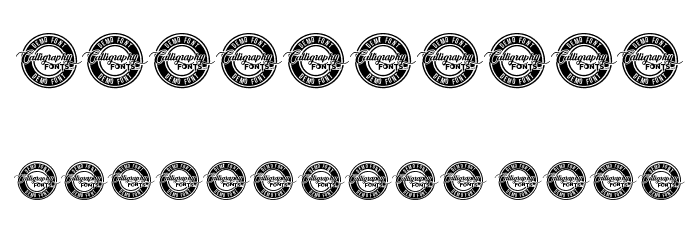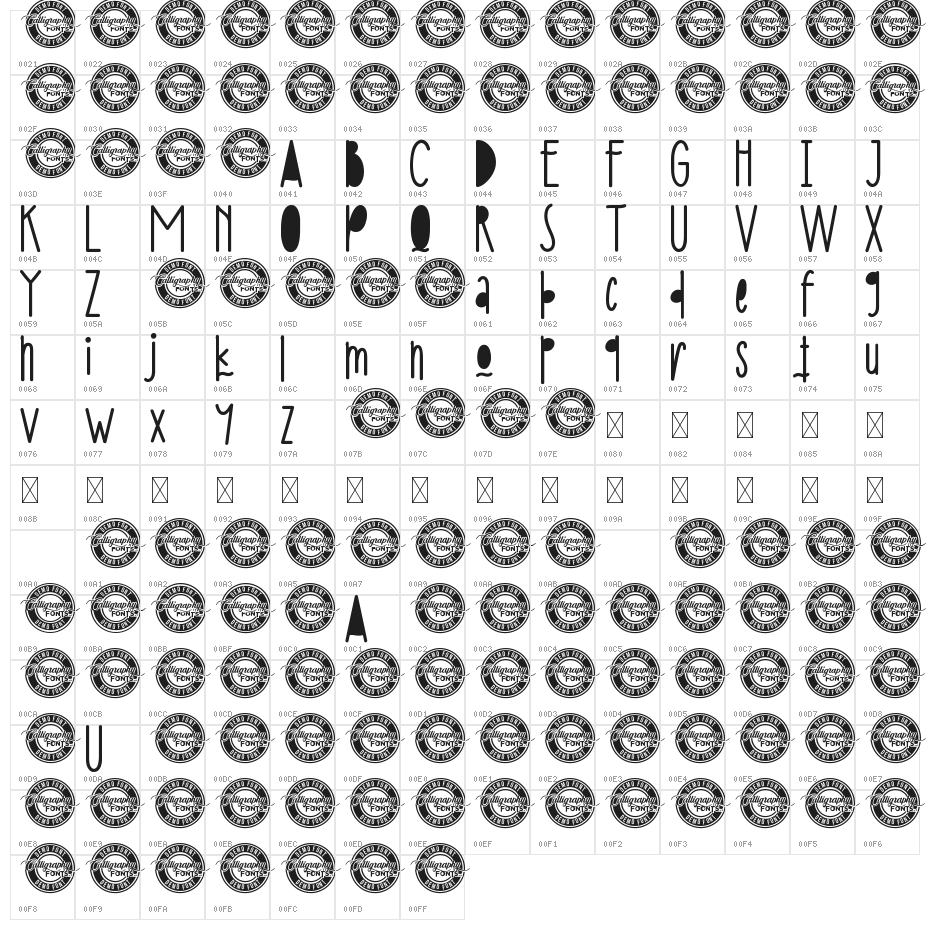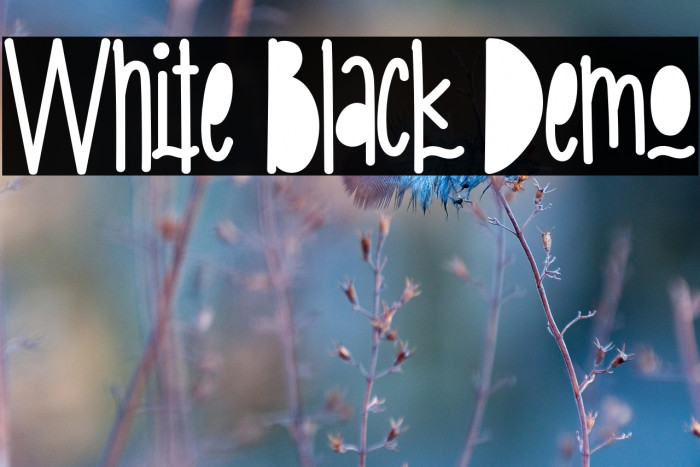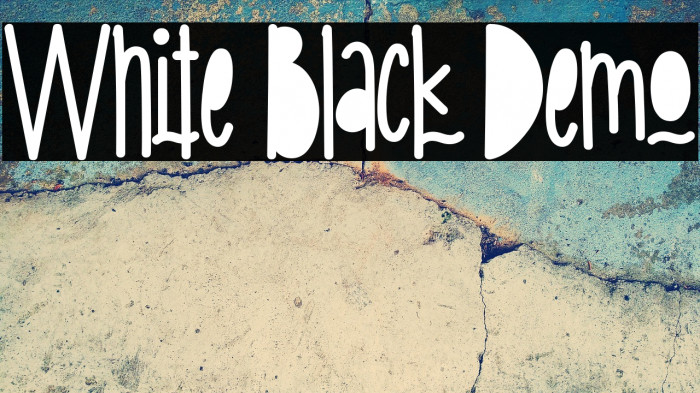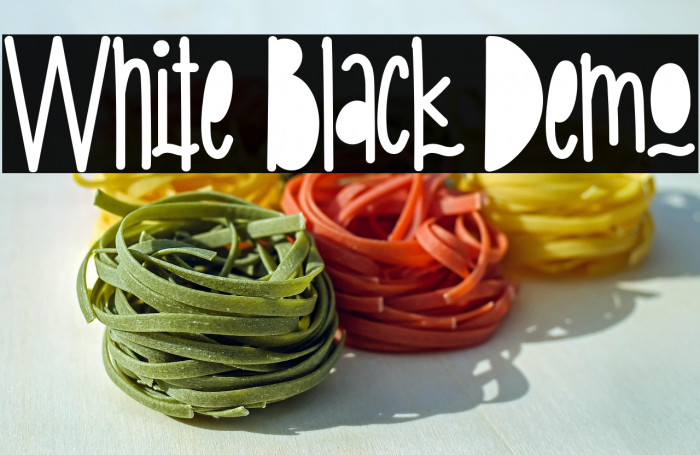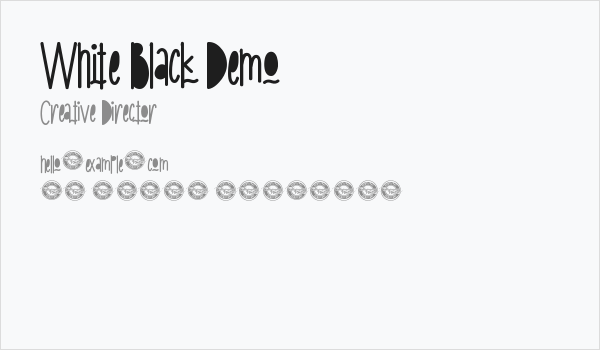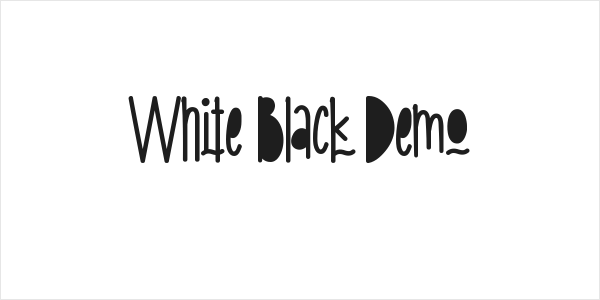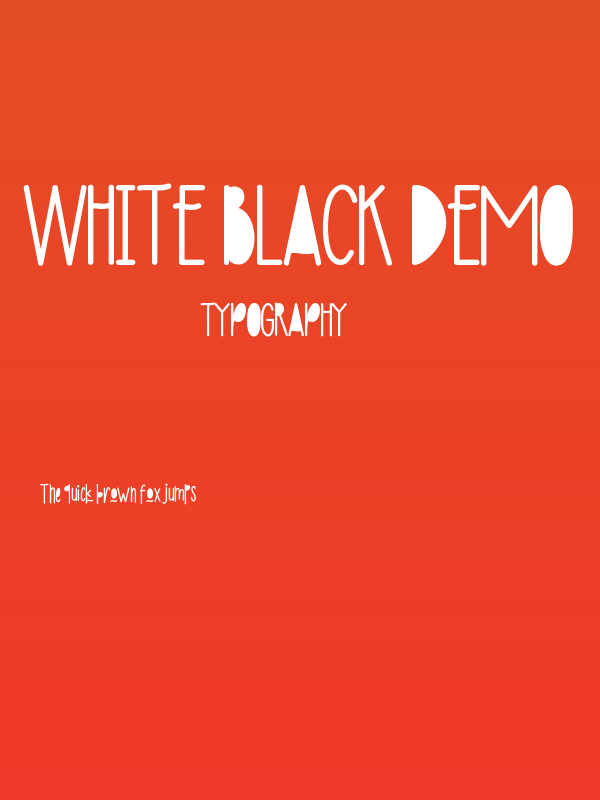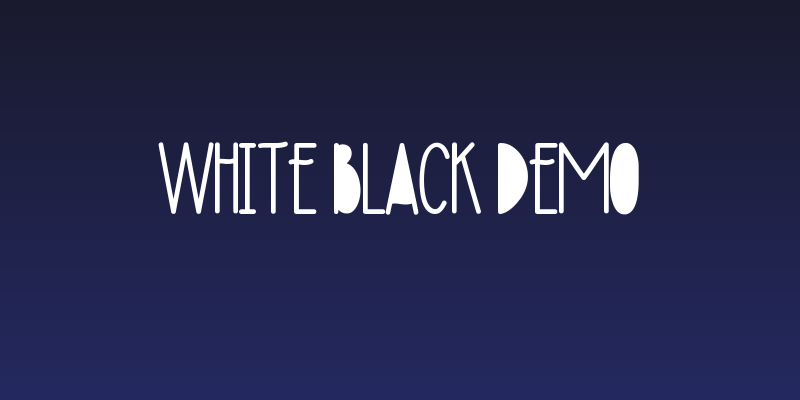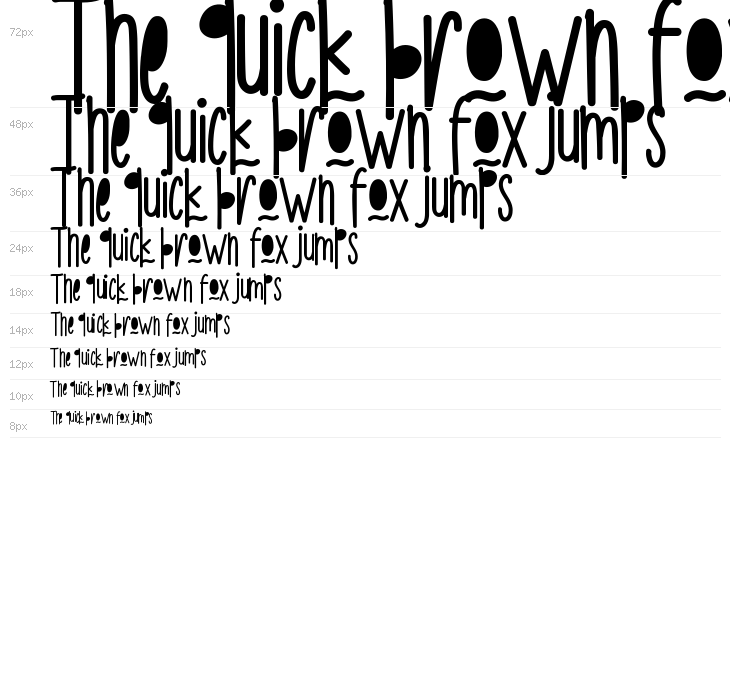
White Black Demo Font
White Black Demo Description
This font features a striking contrast between thick and thin strokes, creating a bold and dynamic appearance. The uppercase letters are particularly wide and heavy, while the lowercase letters maintain a more slender and elongated form. The overall design is playful and artistic, with a unique blend of geometric shapes and organic curves. The font's distinctive style makes it stand out, offering a creative and unconventional look that can capture attention. Its high contrast and varied stroke widths contribute to its decorative appeal, making it suitable for projects that require a strong visual impact.
| Proposed Projects | Ideal for creative branding, poster design, album covers, and any project needing a bold, artistic touch. |